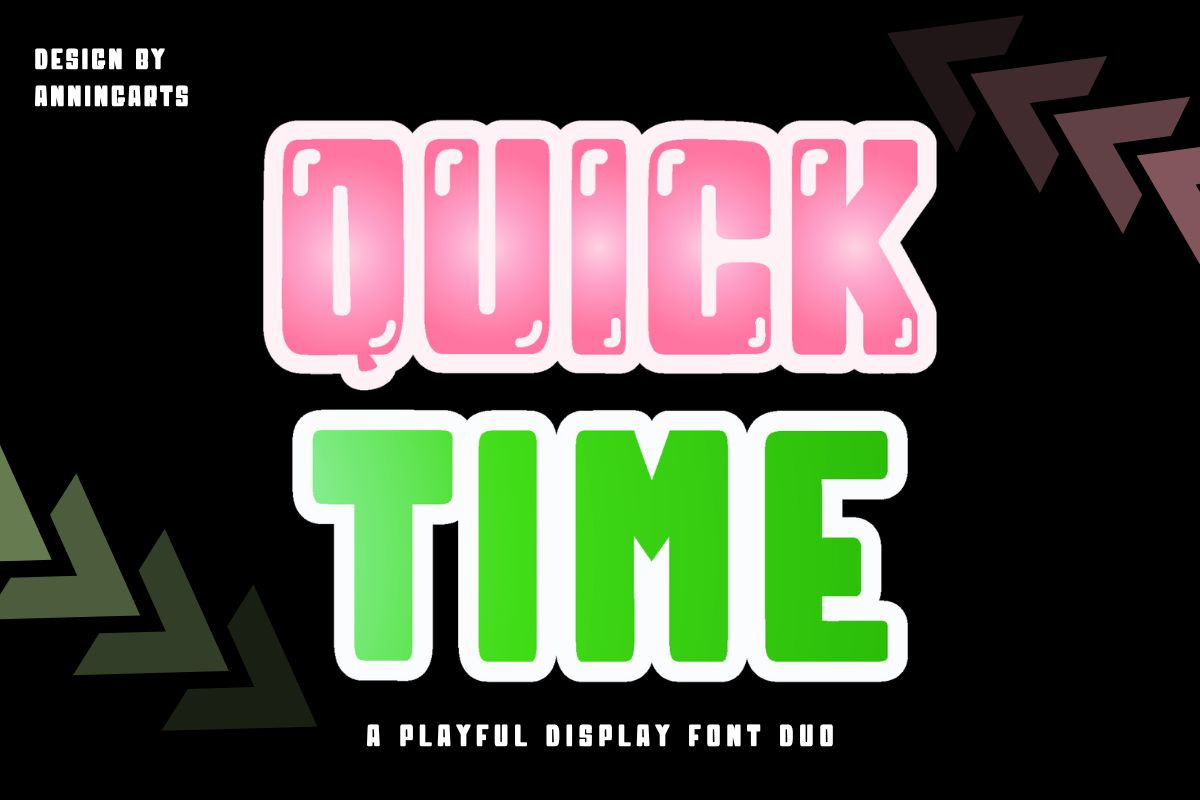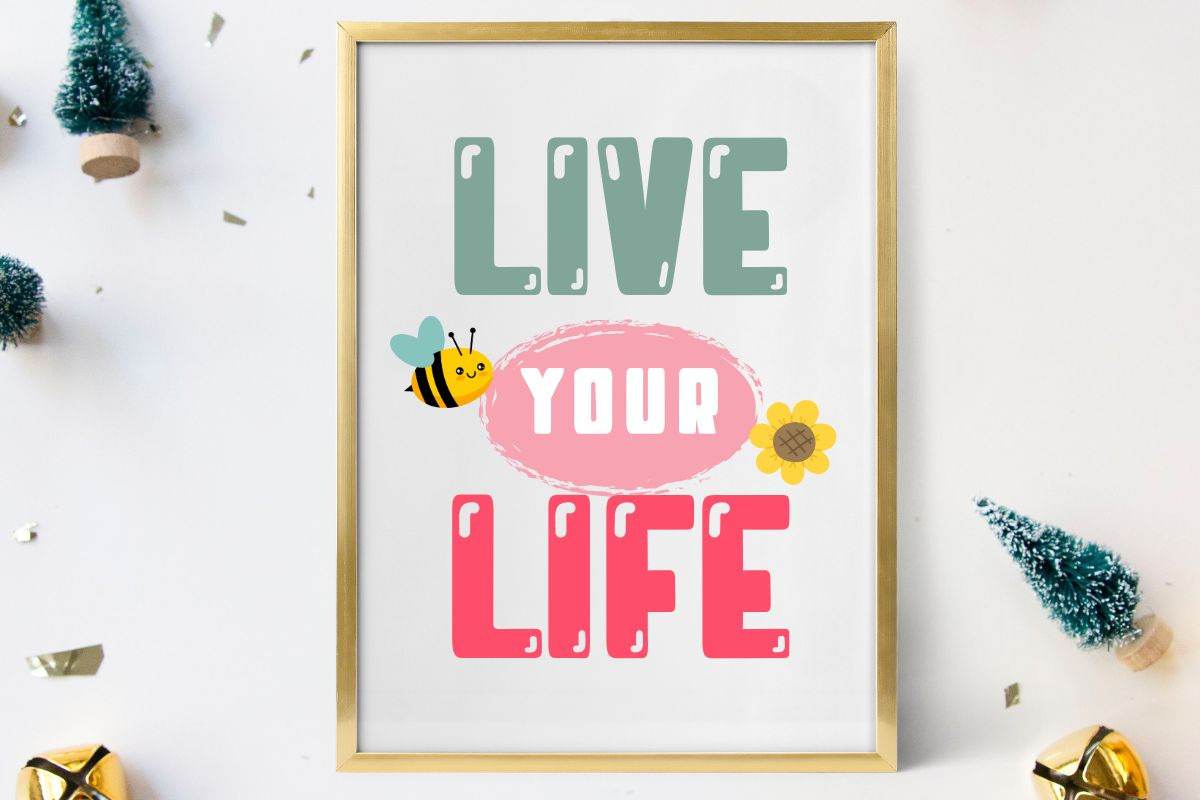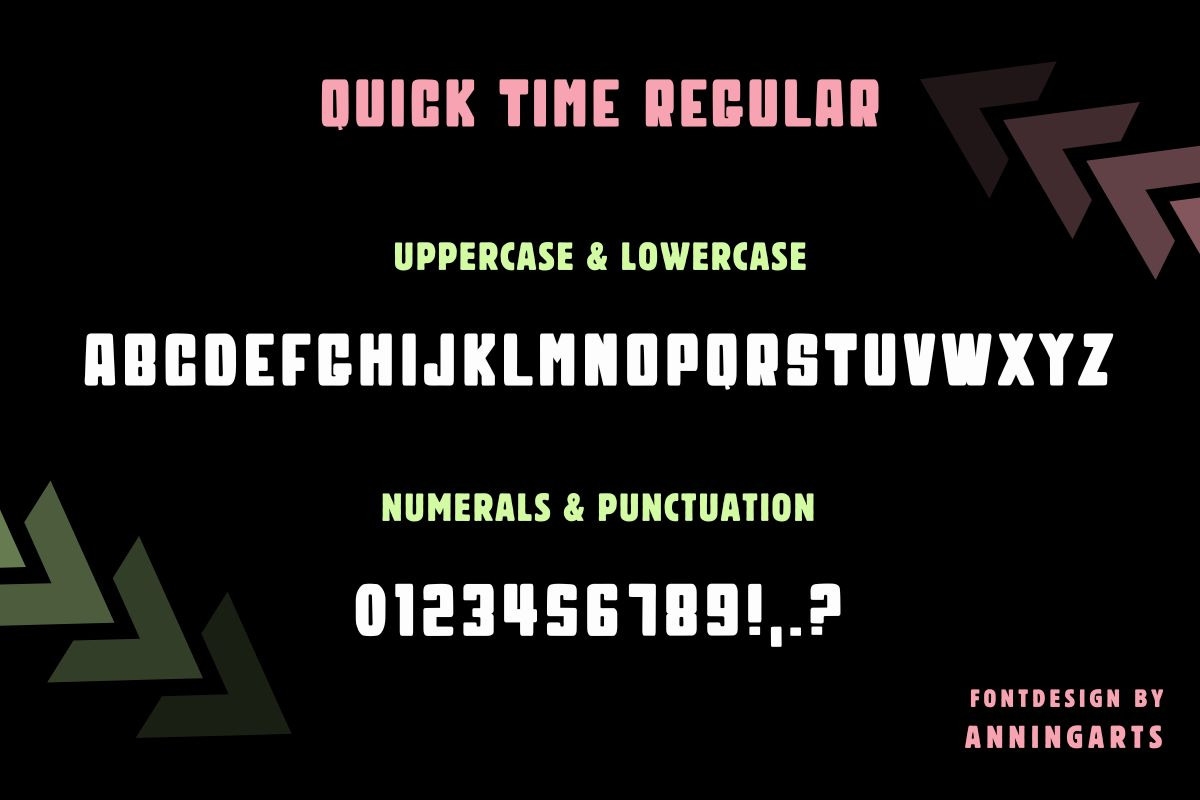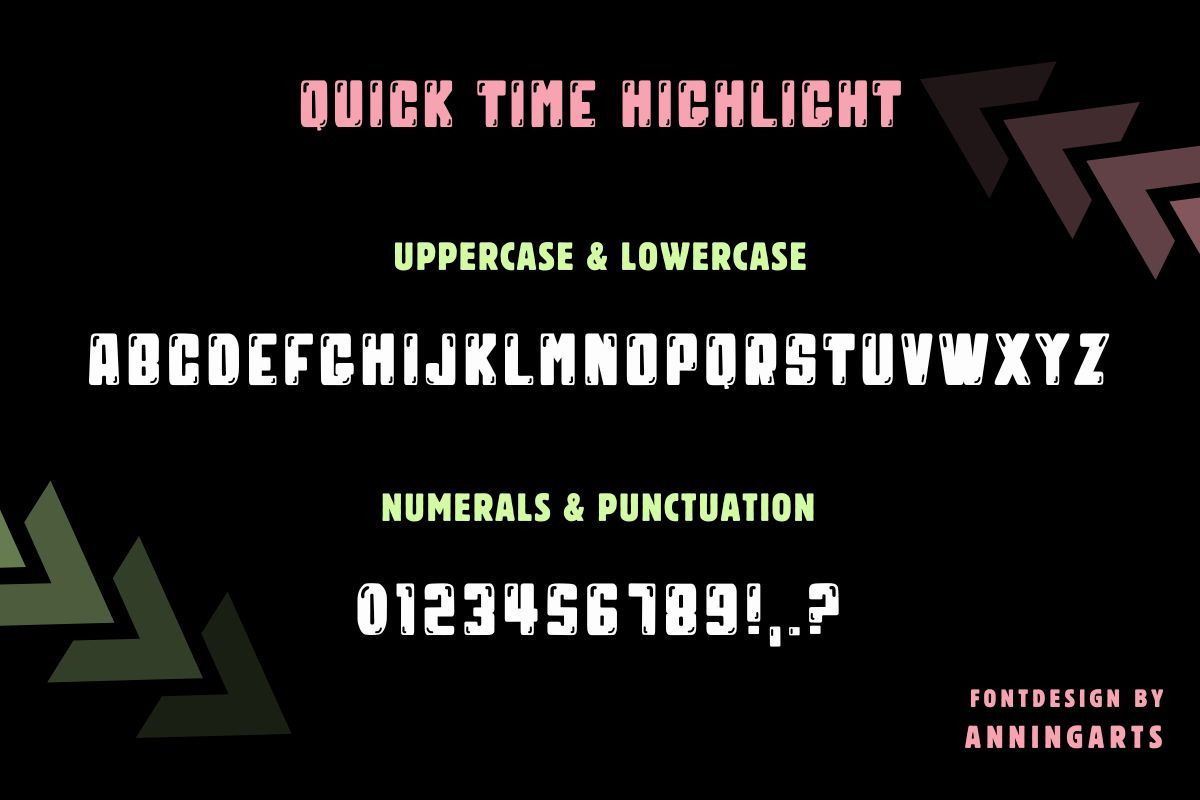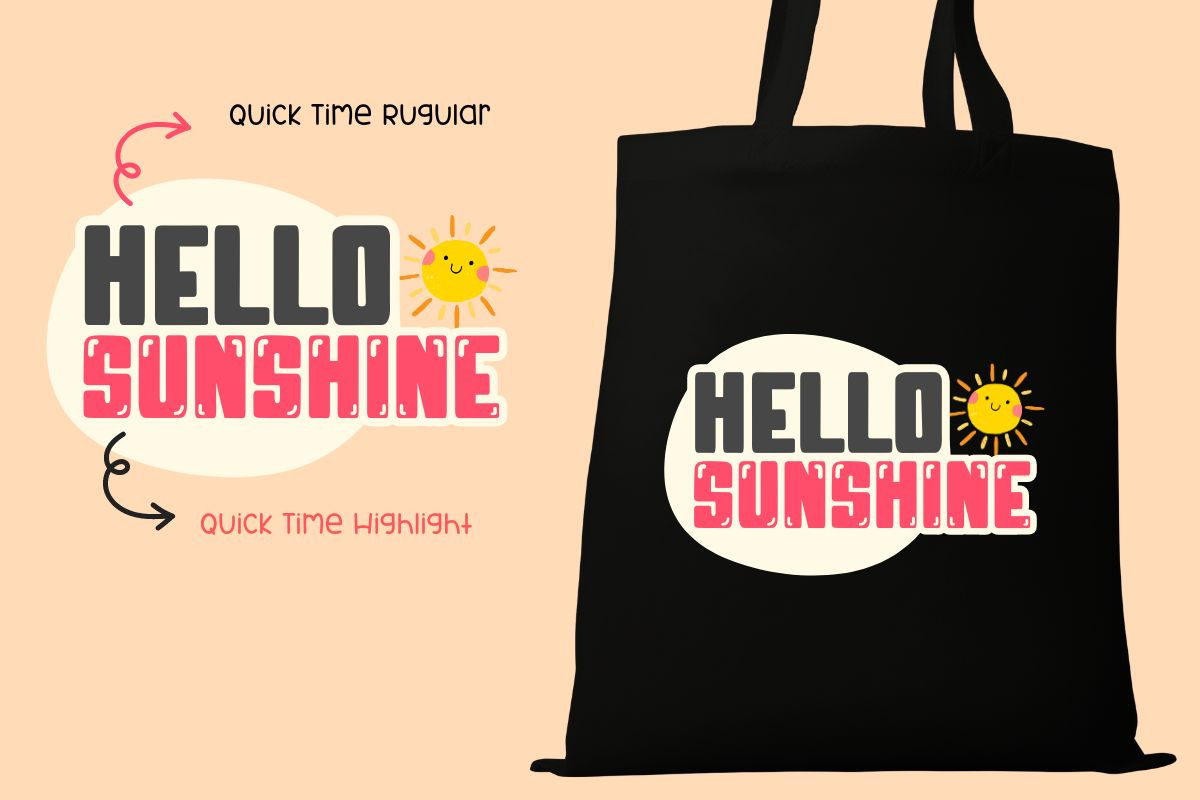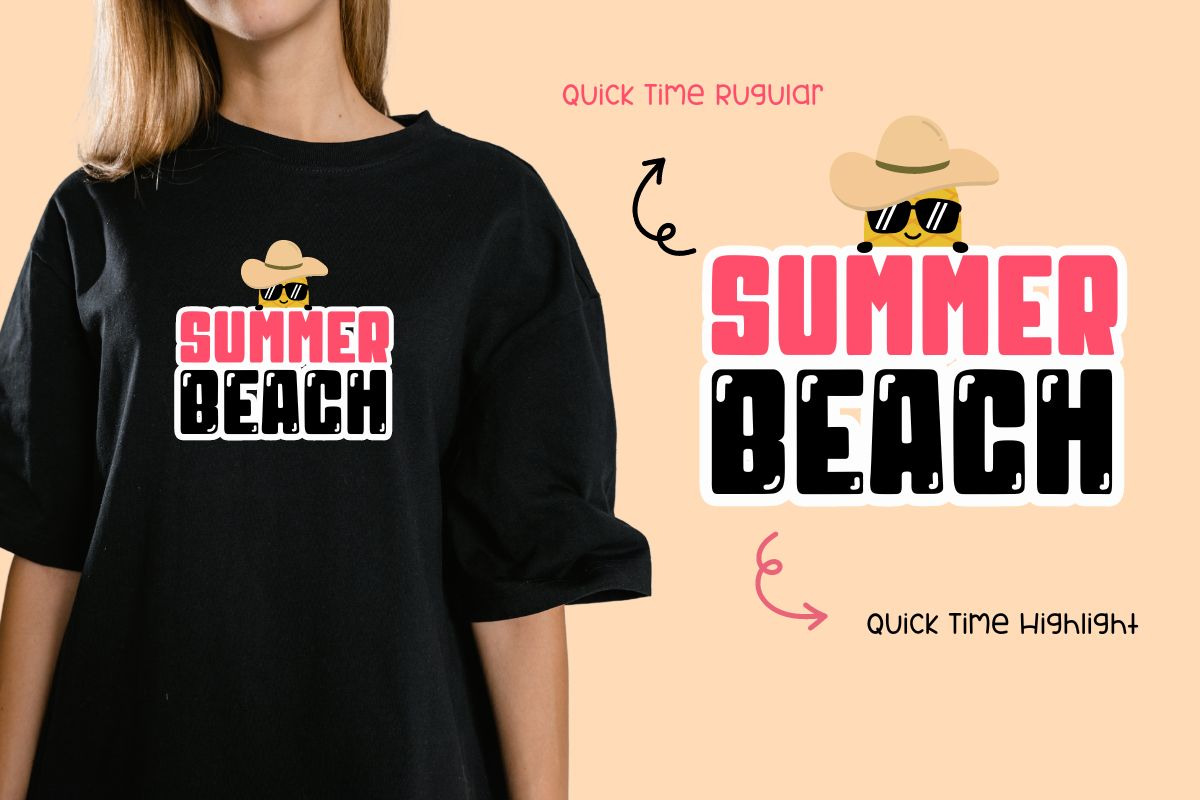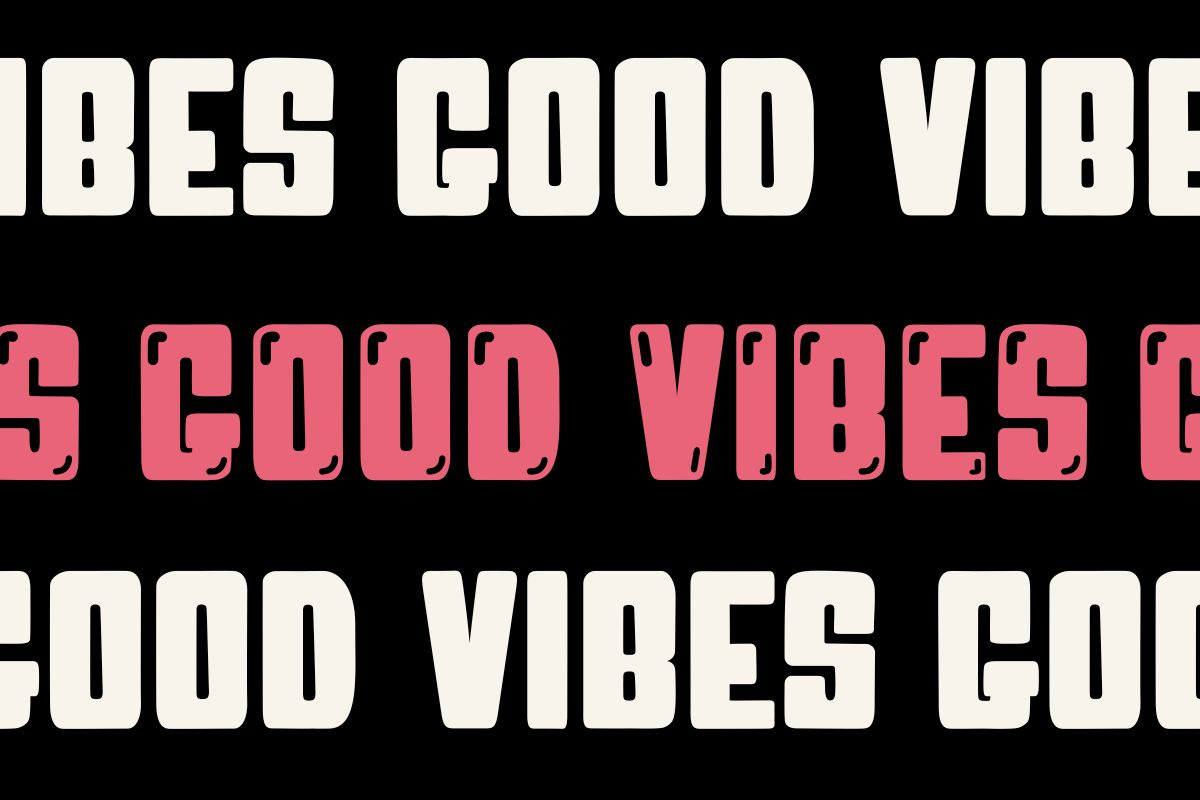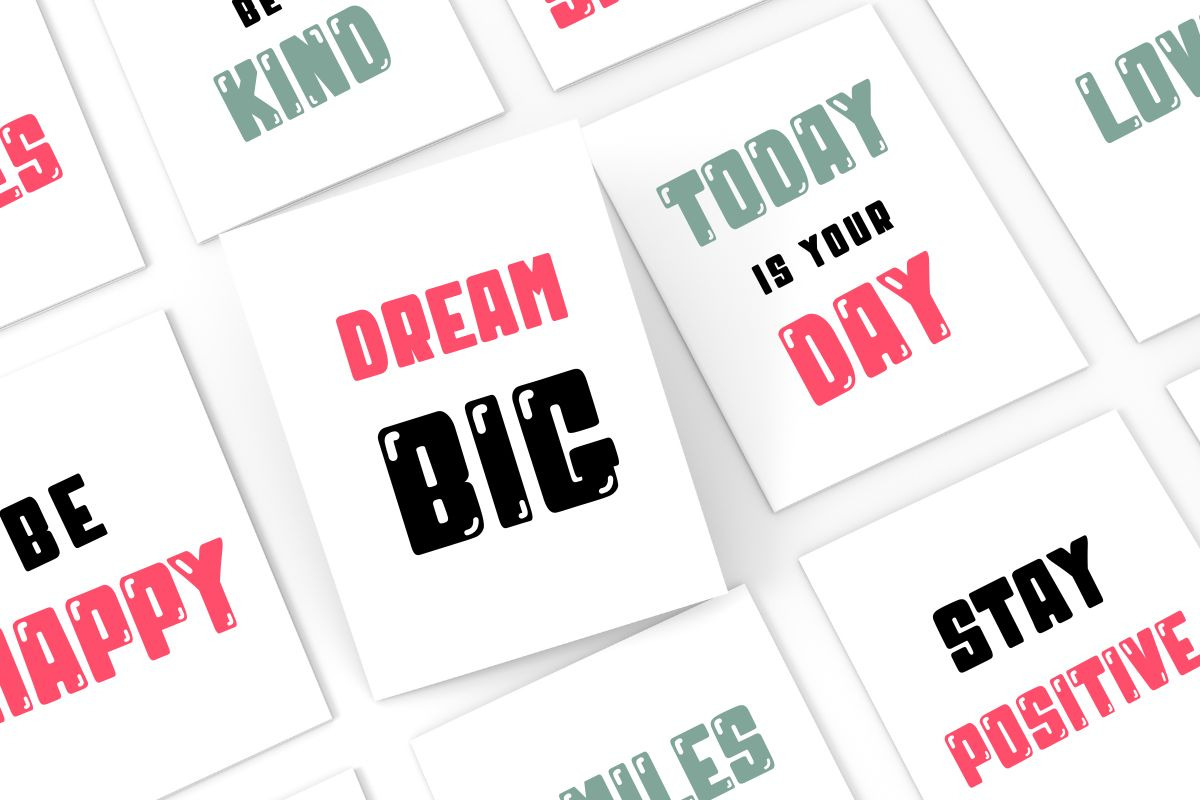
Quick Time - Font Duo
QUICK TIME is a playful and vibrant font duo. It is versatile and can be used for note-taking, diary writing, or creating greeting cards, tote bags, mugs, and more.